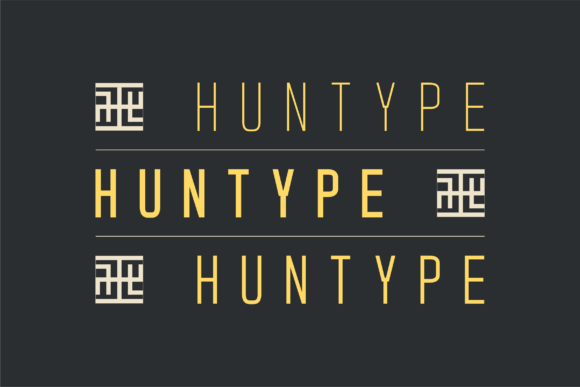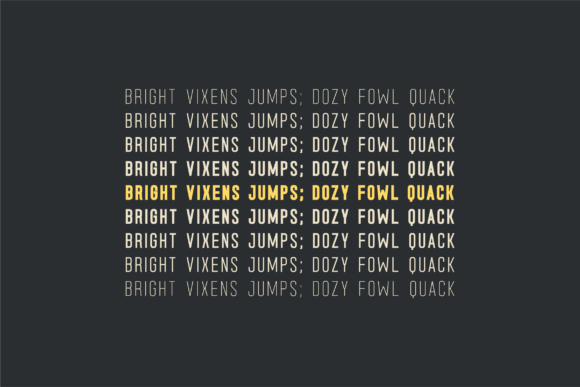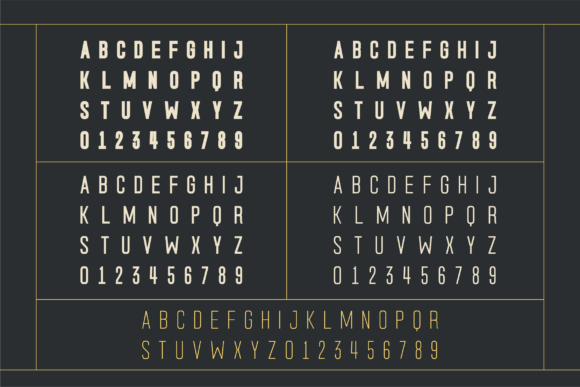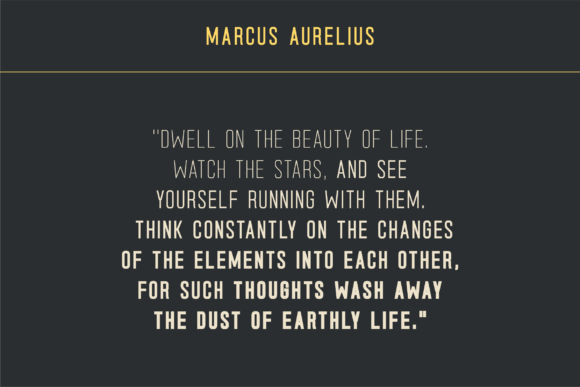
Discover the Perfect Balance of Elegance and Readability with Fonstyle Font
You know that moment when you’re working on a design project, and the perfect font just seems to be missing? The one that will elevate your message, catch the viewer’s eye, and leave a lasting impression? For designers, finding that perfect font can be a game-changer.
Enter Fonstyle Family, a meticulously crafted collection of fonts designed to bring sophistication and elegance to your designs. With five weights from Thin to Black, Fonstyle Family offers the versatility you need to tackle various projects. Whether you’re creating branding materials, crafting headlines, or simply looking for a font that exudes modern style, Fonstyle Family is the perfect choice.
Fonstyle Font Key Features
- Unique Characteristic: Fonstyle Font features a unique blend of modern and traditional design elements, with intricate details and subtle texture.
- Font Weight: Fonstyle Font is available in multiple weights, including Light, Regular, Medium, Bold, and Black, allowing for a range of styling options.
Fonstyle Font Review
As a designer, I was excited to dive into Fonstyle Font and see what it had to offer. Overall, I’d say it’s a solid addition to any design toolkit, but like any font, it’s not perfect. Here’s the lowdown:
- Unique aesthetic: Fonstyle Font has a distinctive, modern look that’s perfect for designs that need a bit of flair.
- High-quality glyphs: The font includes a wide range of characters, including accents and symbols, making it a great choice for international designs.
- Easy to read: Fonstyle Font is highly legible, even at small sizes, which makes it a great choice for body text.
- Limited font weight options: While Fonstyle Font has a range of weights, it’s not as comprehensive as some other fonts on the market.
- No italics or script options: If you’re looking for a font with more nuanced styling options, Fonstyle Font may not be the best choice.
Overall, I’d say Fonstyle Font is a great choice for designers who want a modern, unique font for their projects. While it may not have all the bells and whistles, it’s a solid addition to any design toolkit and can add a lot of visual interest to your designs.
Tips for Getting the Most Out of Fonstyle Font
Use Fonstyle Font for creative projects that require a unique and stylish font. It’s particularly suitable for headings, titles, and logos. Experiment with different font sizes and colors to create a visually appealing effect.
Fonstyle Font is commonly used for:
- Logo design
- Brochure design
- Infographic design
- Social media graphics
Alternatives to Fonstyle Font
Playfair Display is an elegant and luxurious serif font, ideal for high-end designs, such as luxury brands, weddings, and formal invitations. Its ornate details and classic feel make it perfect for creating a sophisticated atmosphere. Compared to Fonstyle Font, Playfair Display is more ornate and luxurious, making it suitable for designs that require a touch of elegance.
Merriweather is a classic serif font, known for its readability and versatility. It’s suitable for a wide range of designs, including books, magazines, and websites. Compared to Fonstyle Font, Merriweather is more straightforward and easy to read, making it perfect for designs where clarity is key.